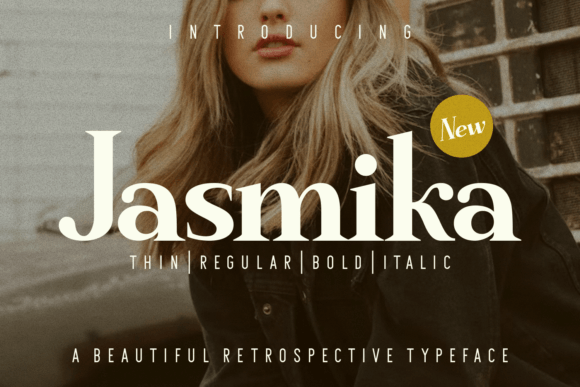
Discover the beauty of Jasmika Font, the perfect serif font for your book interior. Created by Kelik - 7NTypes, this font is sure to impress with its unique design and eye-catching appeal.
Jasmika Font is not just any font - it's an exquisite choice that can elevate any text to the next level. Whether you're creating attractive labels, designing impressive marketing campaigns, or crafting professional business cards, Jasmika Font is sure to make your creations unforgettable.
With its captivating design, Jasmika Font is a versatile choice that works well for a variety of projects. Its unique serifs give it a classic feel, while its modern design ensures that it stays relevant and eye-catching.
If you're looking for a font that will make your book interior stand out, then Jasmika Font is the perfect choice. Its beautiful, flowing lines and elegant curves make it an ideal choice for any book, whether you're writing a novel, a memoir, or a how-to guide.